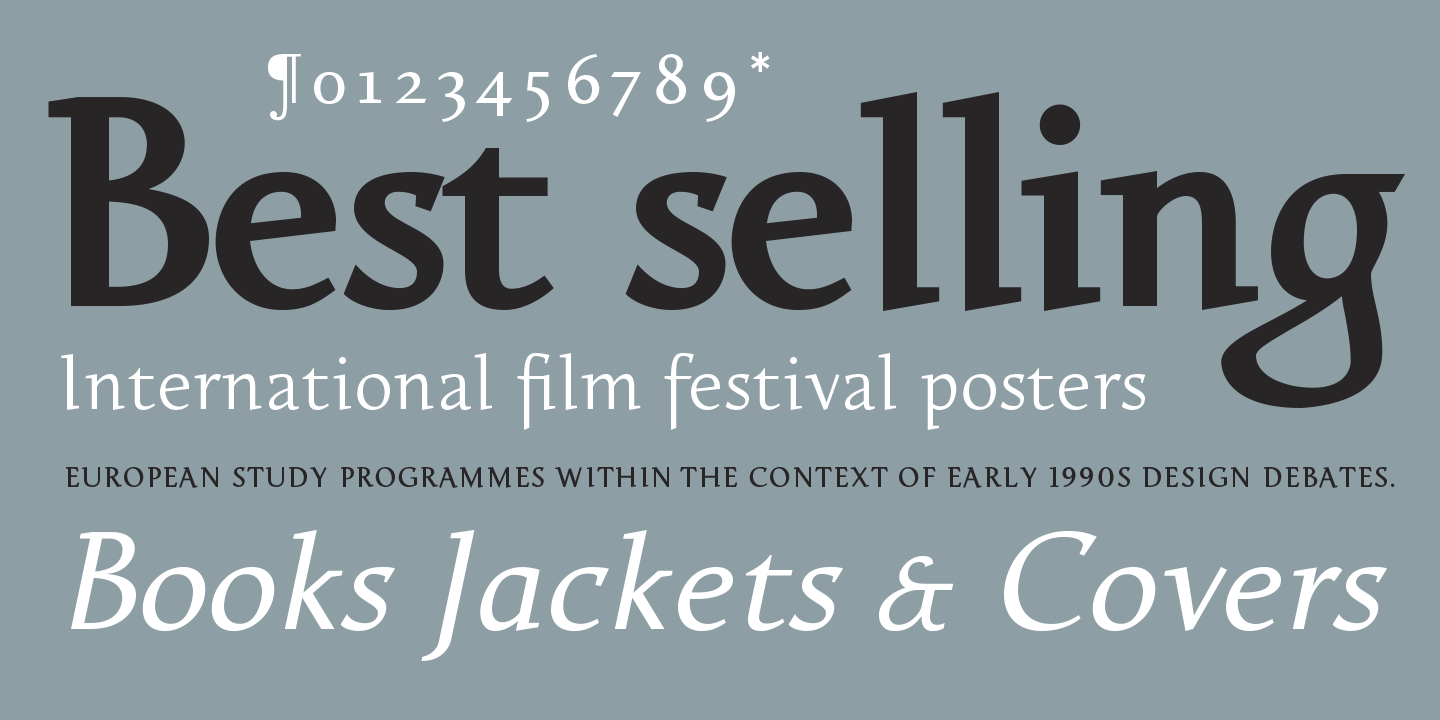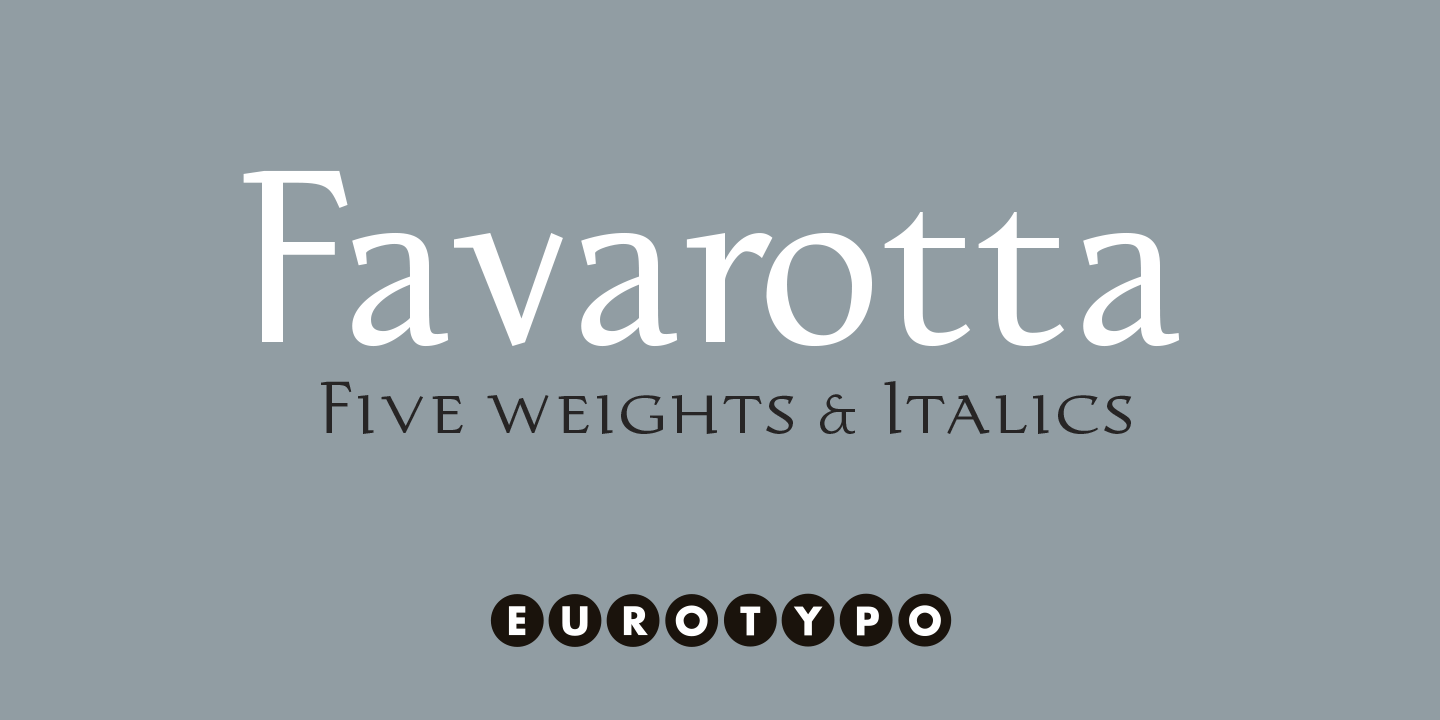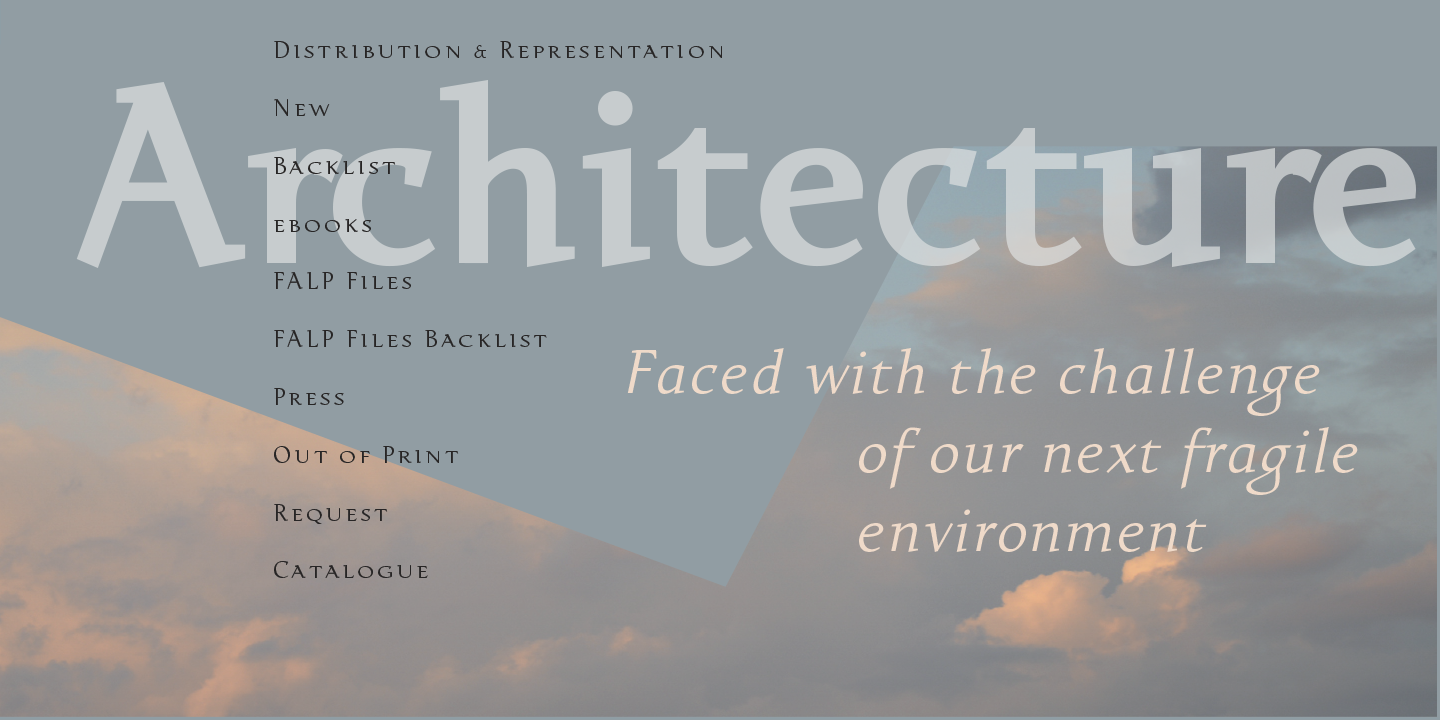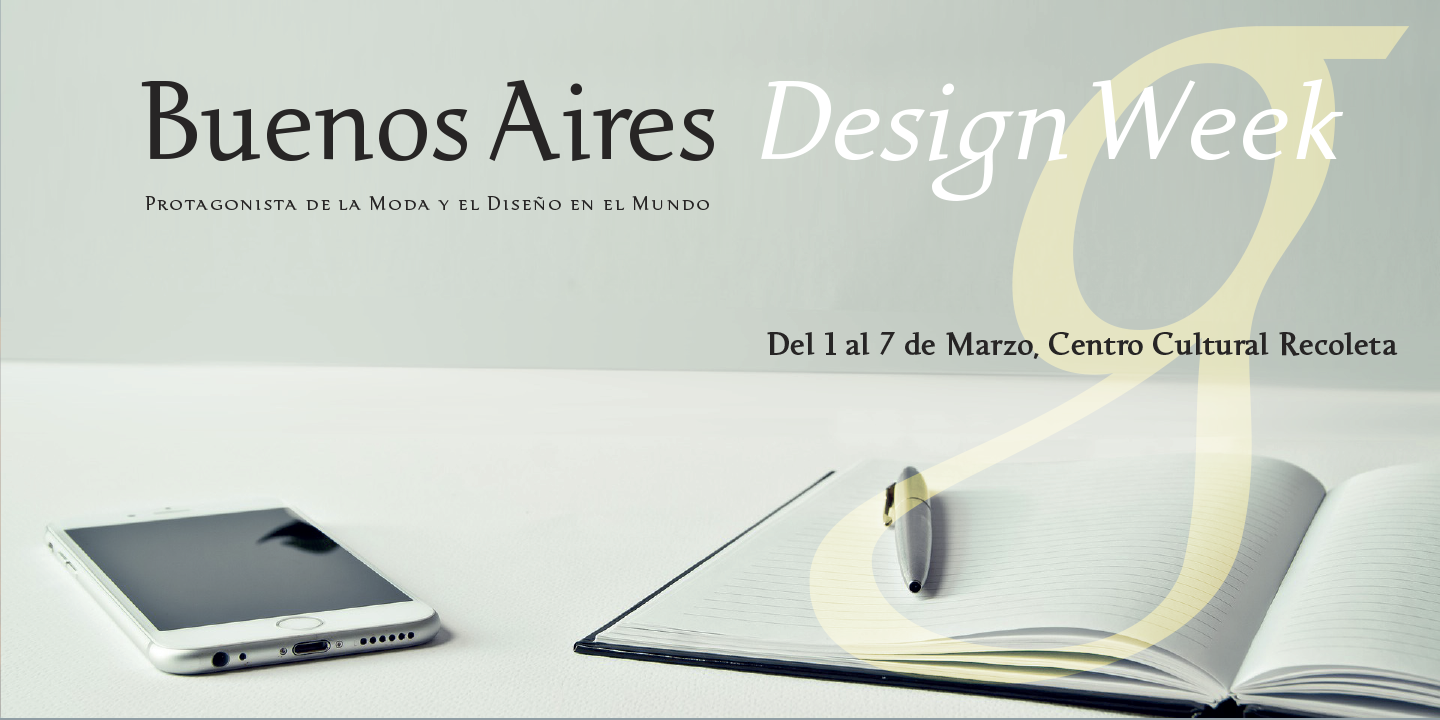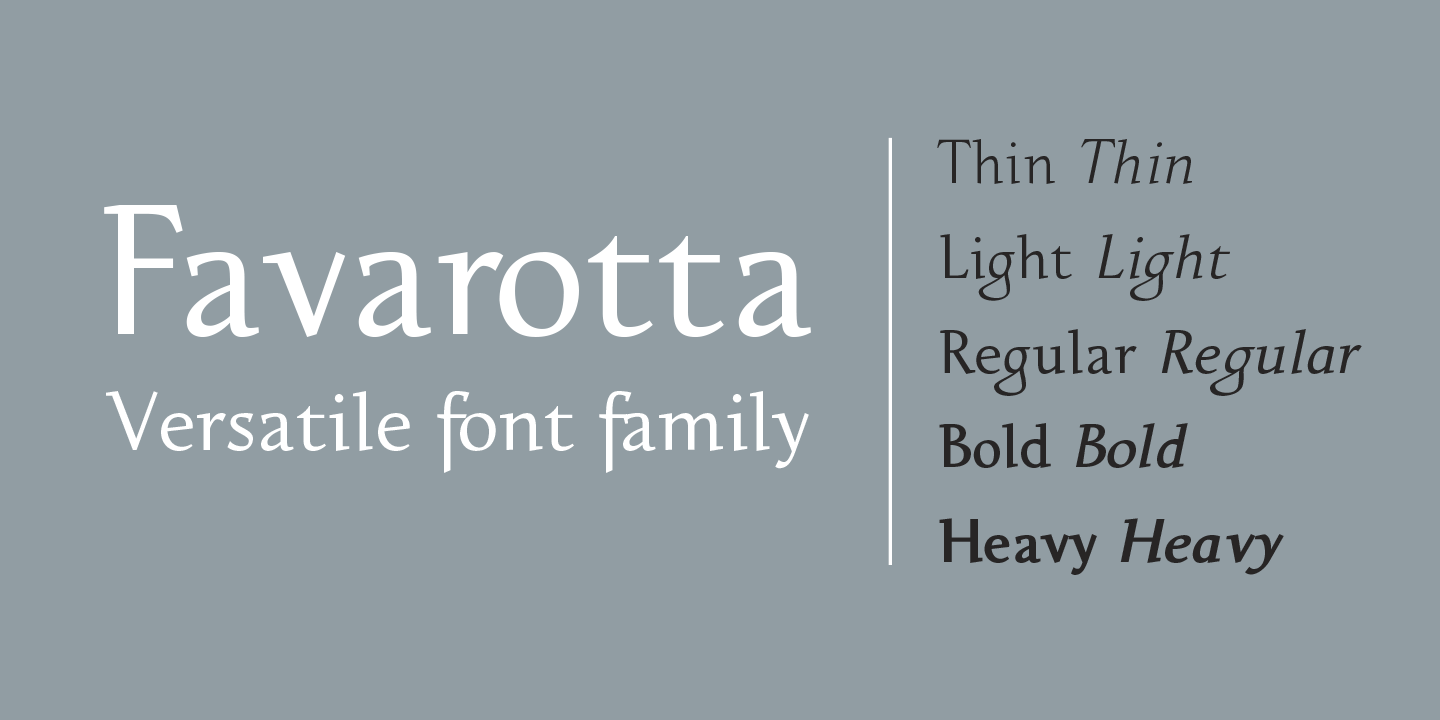
Favarotta
Inspired by the Carolingian Tradition
Favarotta is a refined typeface inspired by the tradition of Carolingian writing, a style that remained influential in handwritten liturgical manuscripts in Italy long after its initial development. This historical foundation gives the typeface a sense of continuity, cultural depth, and timeless elegance. Its forms reveal a close relationship with early Italian printed books, translating the warmth and rhythm of historical handwriting into a contemporary, highly usable type system.
A Harmony of Structure & Flow
The design of Favarotta brings together the clarity of Roman cursive writing with subtle innovations derived from Celtic insular scripts. These influences are evident in the use of four guide lines and in the fluid movement of the strokes, which transition naturally between ascenders and descenders. The result is a harmonious texture on the page, offering a balanced combination of structure and organic flow that enhances readability while preserving a distinctive character.
Versatile Weights for Editorial Use
Favarotta is designed as a versatile type family, consisting of five weights, each accompanied by a carefully crafted italic. The italics maintain excellent legibility and visual consistency, avoiding exaggerated or overly decorative gestures. Their restrained elegance allows them to integrate seamlessly into continuous text, while still providing emphasis and contrast when needed.
Engineered for Reading Comfort
This family has been developed with reading comfort as a core principle. Whether used in long-form editorial content or refined typographic compositions, Favarotta delivers a pleasant and engaging reading experience. Its even color, well-balanced proportions, and smooth stroke modulation contribute to text that feels both stable and lively.
Advanced OpenType Features
Each font within the Favarotta family includes a rich set of typographic features, such as standard ligatures, small capitals, and old-style numerals, enabling sophisticated and flexible typography. Full support for Central European languages ensures broad usability across international publishing and branding projects.
Ideal for Cultural & Book Design
Favarotta is an excellent choice for designers seeking a typeface that combines historical resonance with contemporary performance—ideal for books, editorial design, cultural publications, and any project where clarity, tradition, and elegance are essential.